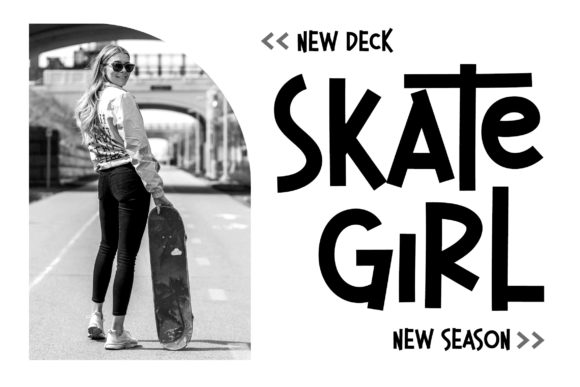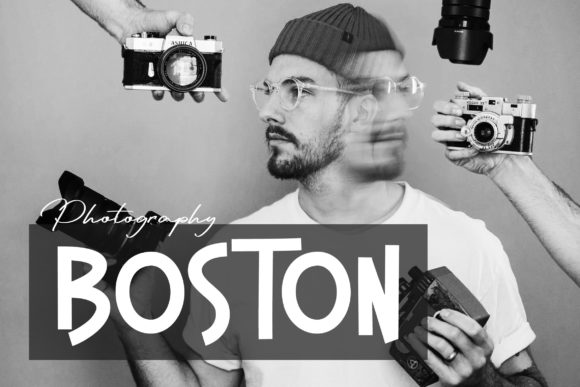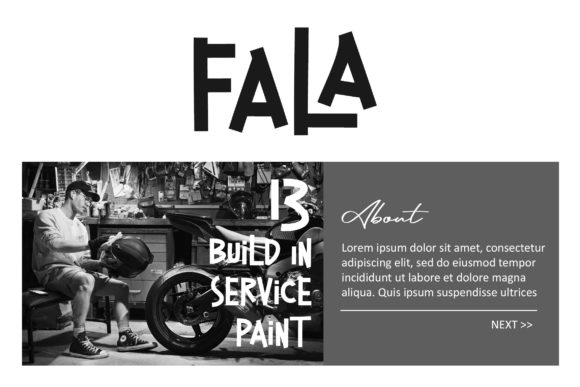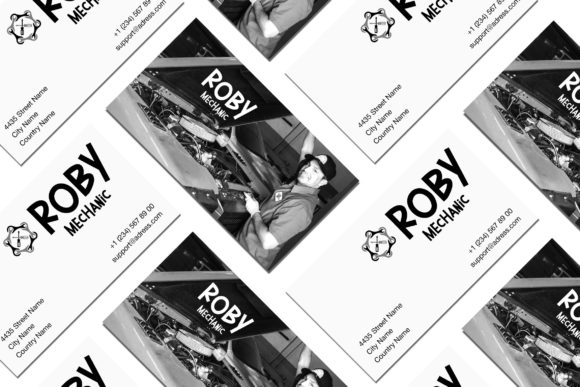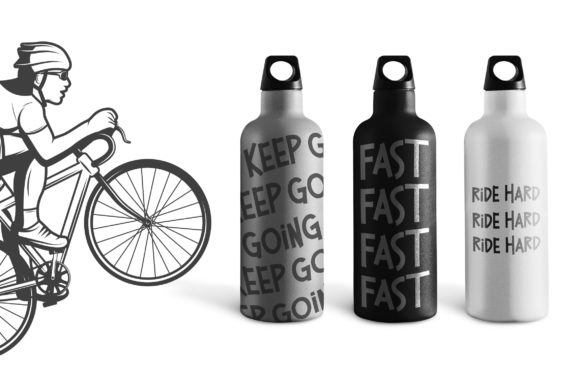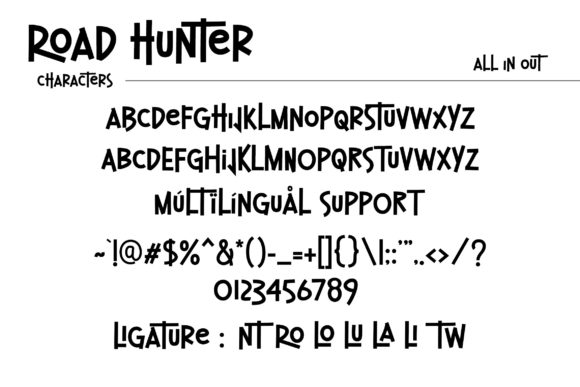
Introduction to Road Hunter Font
Have you ever been on a creative roll, only to find yourself stuck on the perfect font for your design project? You’ve got a clear vision in mind, but the right typography is the missing piece of the puzzle. That’s where the Road Hunter Font comes in – a bold, eye-catching display font that’s perfect for adding a street art vibe to your work.
As a valuable design resource, the Road Hunter Font offers endless possibilities for creative projects. Its high-quality design makes it suitable for a wide range of applications, from t-shirts and sportswear to logos, advertisements, and clothing. With its transparent background and free download option, you can easily incorporate this font into your next design project and take it to the next level.
Whether you’re a seasoned designer or just starting out, the Road Hunter Font is a must-have in your design arsenal. Its versatility and high-quality design make it an essential tool for any creative project, and its free download option means you can get started right away.
Key Features of Road Hunter Font
- Comes with a transparent background, allowing for seamless integration into any design project.
- Features a bold and modern design, making it perfect for headings, titles, and other prominent text elements.
Honest Review: Road Hunter Font
I recently came across the Road Hunter Font and was excited to give it a try. As a designer, I’m always on the lookout for high-quality design resources to enhance my creative projects. The Road Hunter Font does not disappoint.
What works well: ✨ The font’s sleek, modern design makes it perfect for a variety of applications, from logos to digital displays. The transparent background feature allows for easy customization and flexibility in design.
- Modern aesthetic
However, there are some limitations to consider: ⚠️ The font’s limited character set may make it less suitable for complex text-based projects. Additionally, the free download version has some restrictions on commercial use.
Overall, I’m impressed with the Road Hunter Font. Its modern design and high-quality aesthetic make it a valuable addition to any designer’s toolkit. While it may have some limitations, I believe it’s a great resource for creative projects, especially those with a focus on digital design.
The Road Hunter Font is perfect for a variety of creative projects, including:
- Website headers and footers
- Social media graphics and advertisements